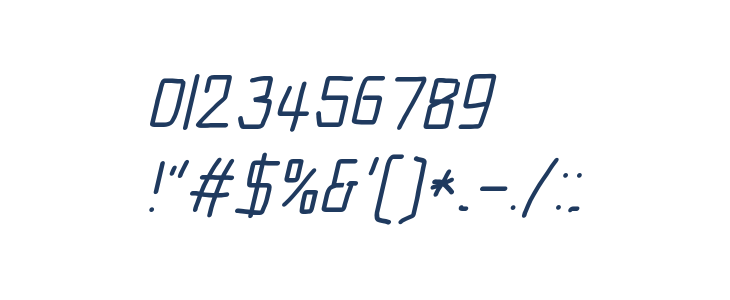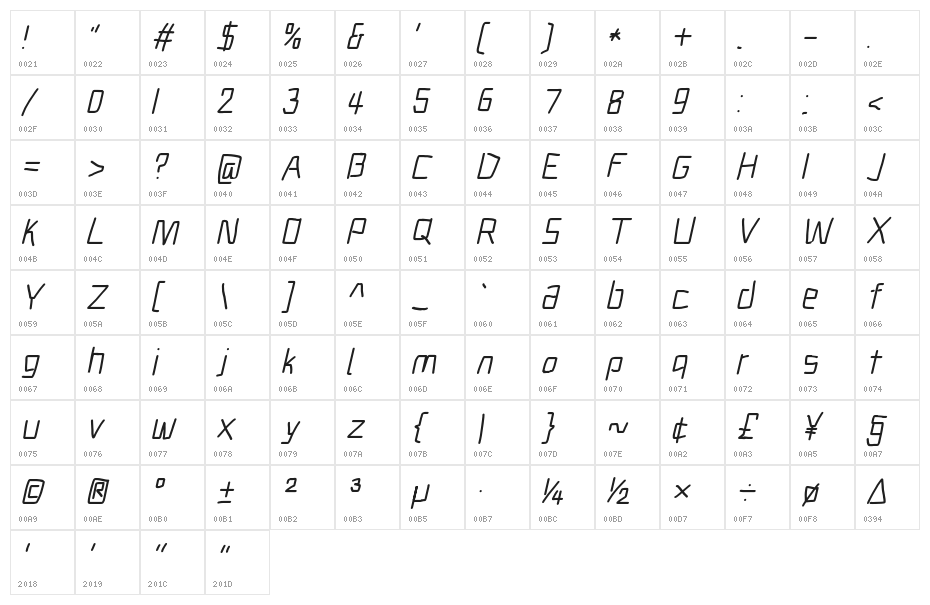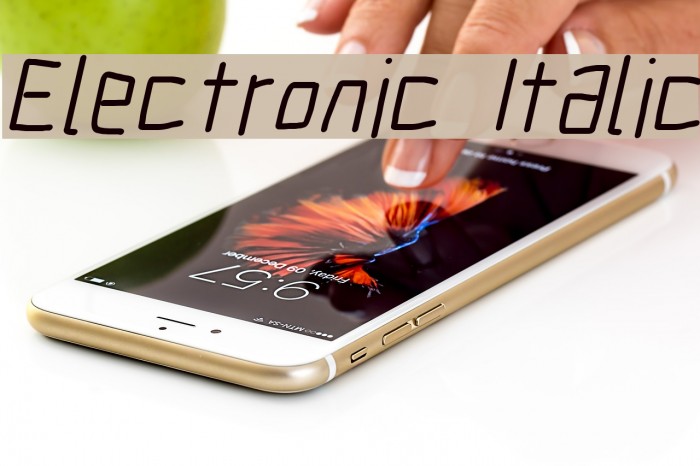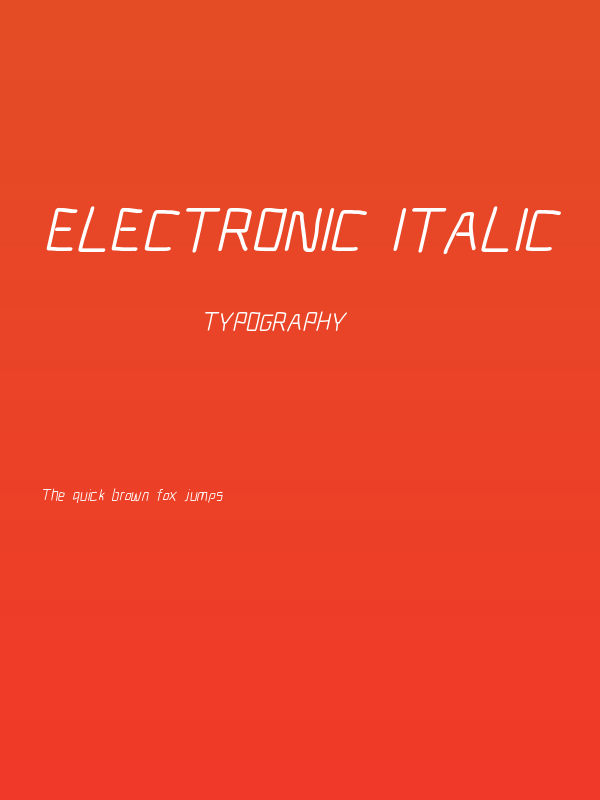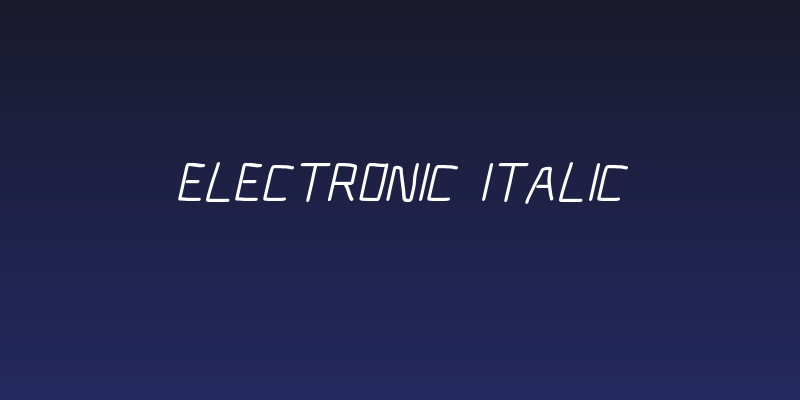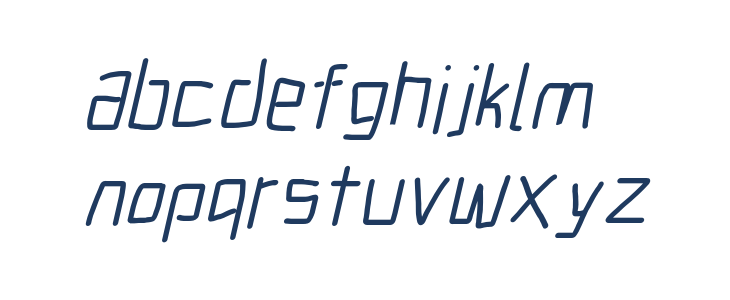
Electronic Italic Font
Electronic Italic Description
This font features a modern, electronic-inspired design with a distinct italic slant. The characters are sleek and angular, giving a futuristic feel. Uppercase and lowercase letters maintain a consistent style, with sharp edges and a slightly condensed form. The numerals are clear and legible, matching the overall aesthetic. Special characters are well-integrated, ensuring versatility in use. The font's unique style makes it suitable for tech-related projects, digital interfaces, and branding that requires a contemporary look.
| Use Case | Logos, Headlines, Digital Interfaces |
| Proposed Projects | Ideal for tech branding, digital interfaces, futuristic designs, and modern advertising. |